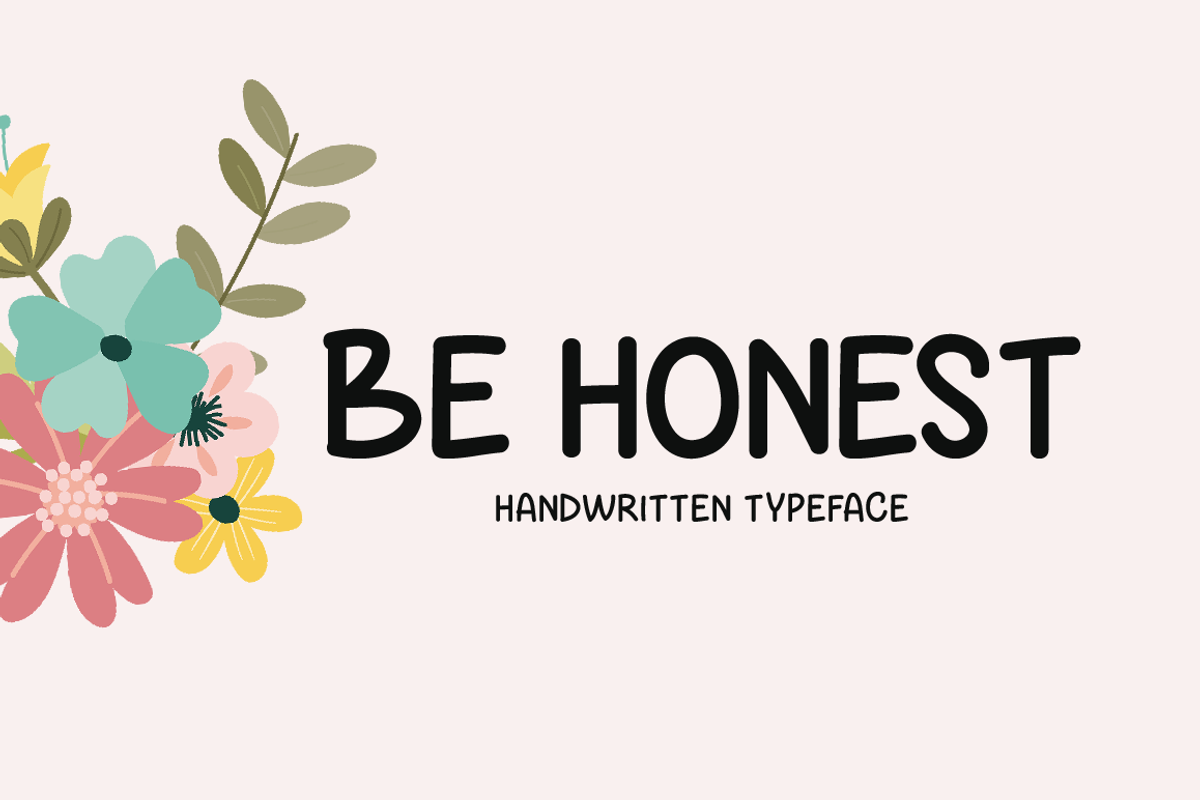
The Be Honest Typeface Free Download is a clean, modern font designed to bring a sense of sincerity and simplicity to your designs. Featuring straightforward lines and a balanced structure, this typeface is perfect for creating minimalist logos, branding, editorial designs, and digital content. Whether you're working on a professional brand, a personal project, or a contemporary creative endeavor, Be Honest adds a touch of elegance and clarity to your work.
Be Honest Typeface Free Download is ideal for designers looking to create clean, modern typography with a refined, honest style. Perfect for sleek, professional branding or minimalist projects, this font will help your designs stand out with its simple, clear look. Download it today and infuse your work with a fresh, honest design!